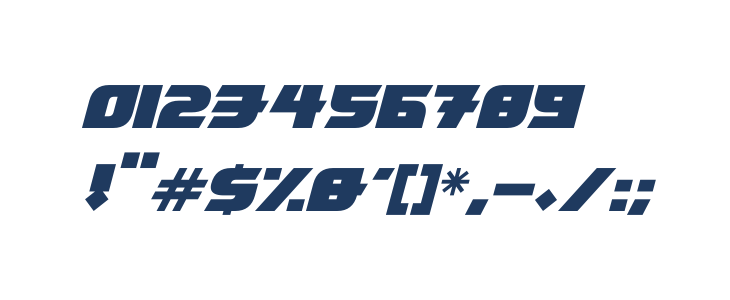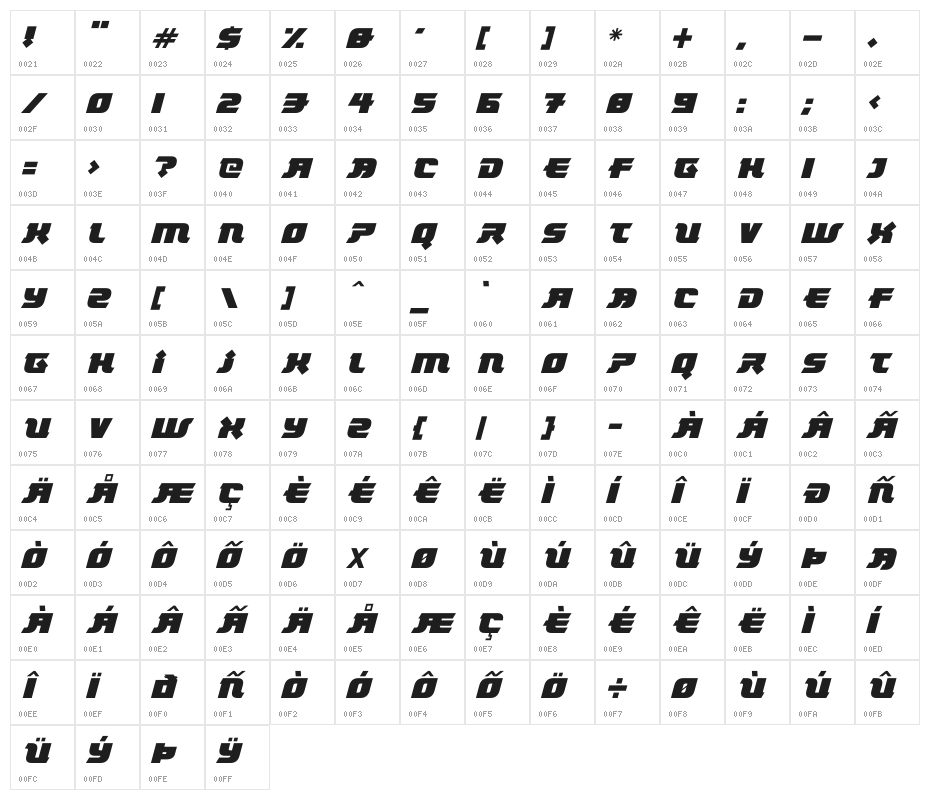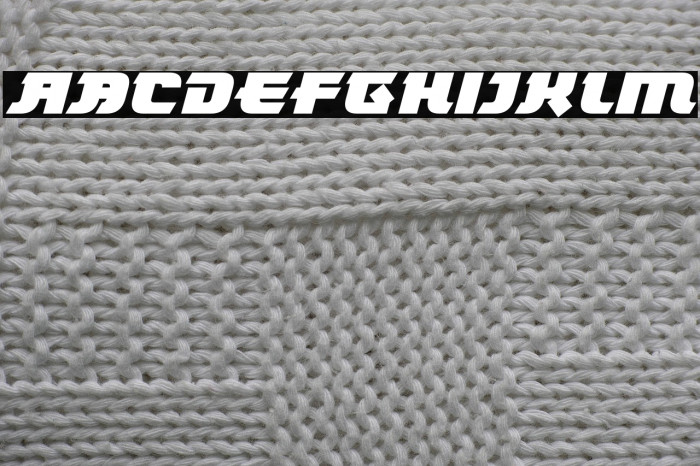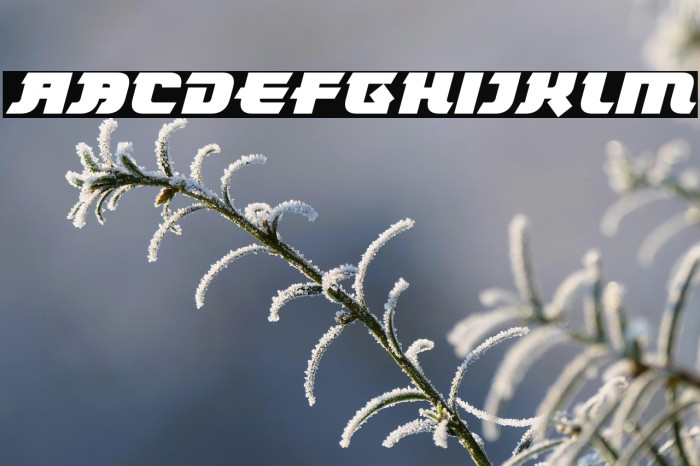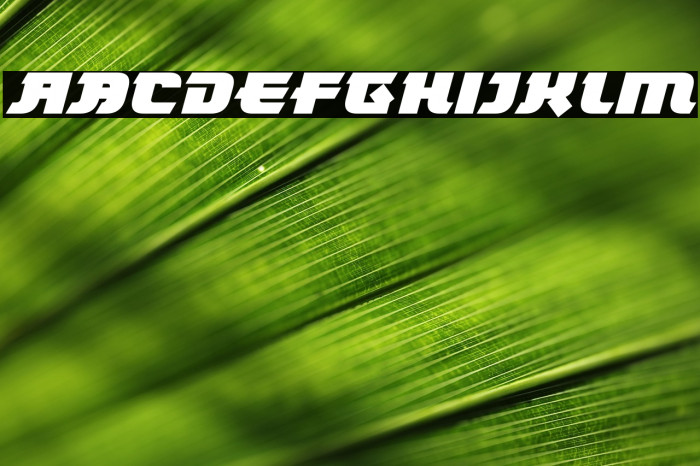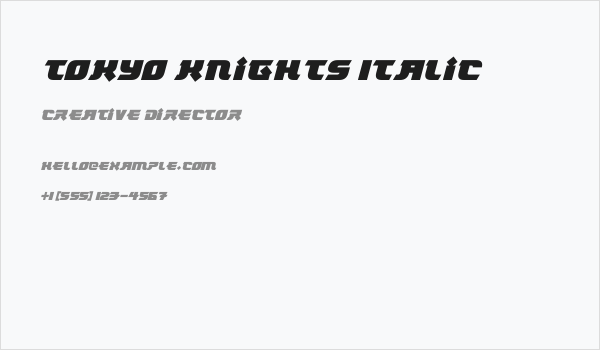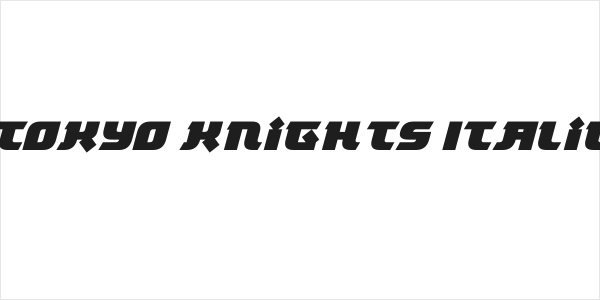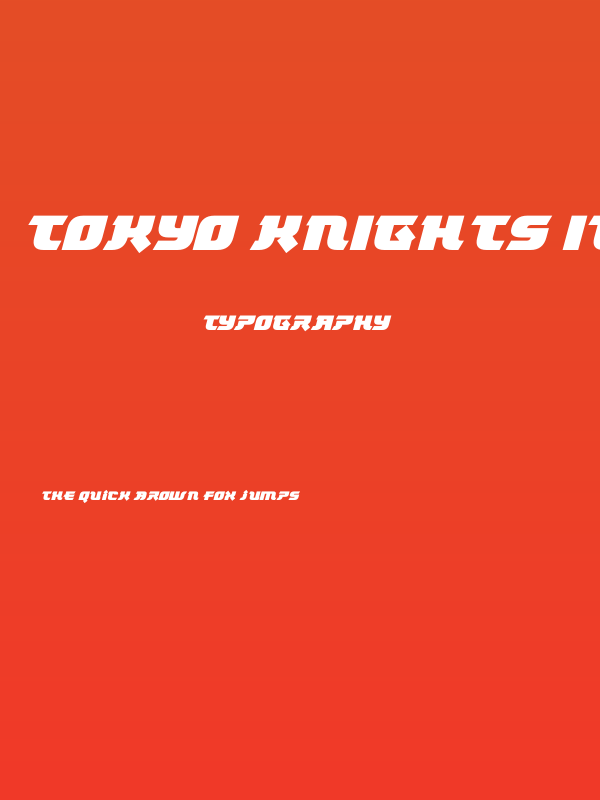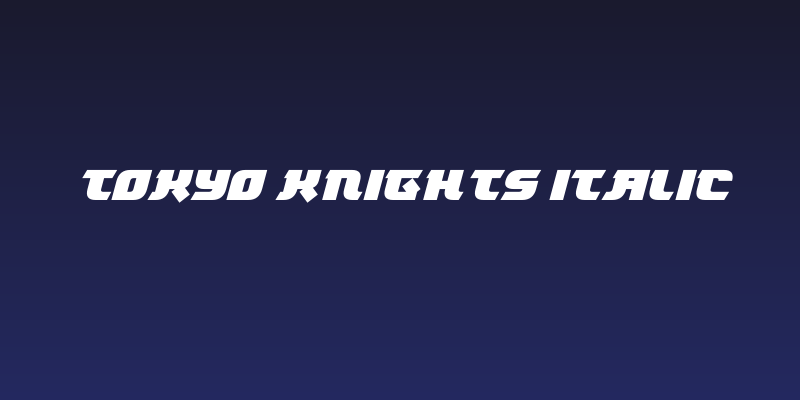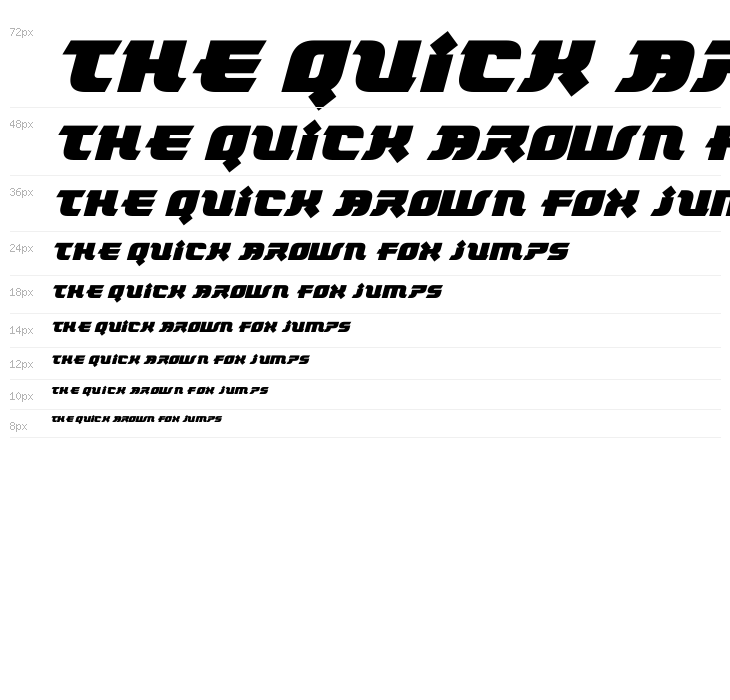
Tokyo Knights Italic Font
Tokyo Knights Italic Description
This font features a bold and dynamic design with a futuristic flair, characterized by sharp angles and a strong geometric structure. The italic style adds a sense of motion and speed, making it ideal for projects that require a modern and edgy look. The uppercase and lowercase letters maintain a consistent style, with each character exhibiting a unique angular cut that enhances its distinctiveness. The numbers and special characters follow the same design principles, ensuring uniformity across all elements. The font's bold weight and italic slant make it stand out, while the medium contrast in stroke thickness adds to its readability.
| Proposed Projects | Ideal for video game titles, tech branding, sports team logos, and sci-fi themed designs. |